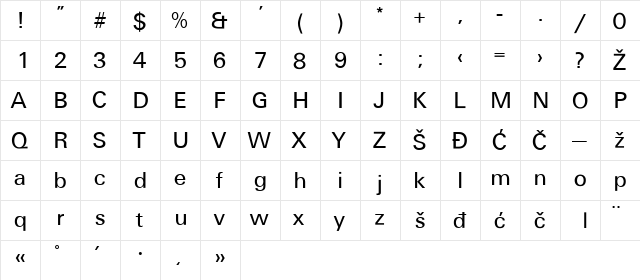
Universans550_PP Regular
Design Context for Universans550_PP Typeface
Universans550_PP offers clean, dependable letterforms without strong stylistic allegiance, making it a practical choice for designers who need flexibility.